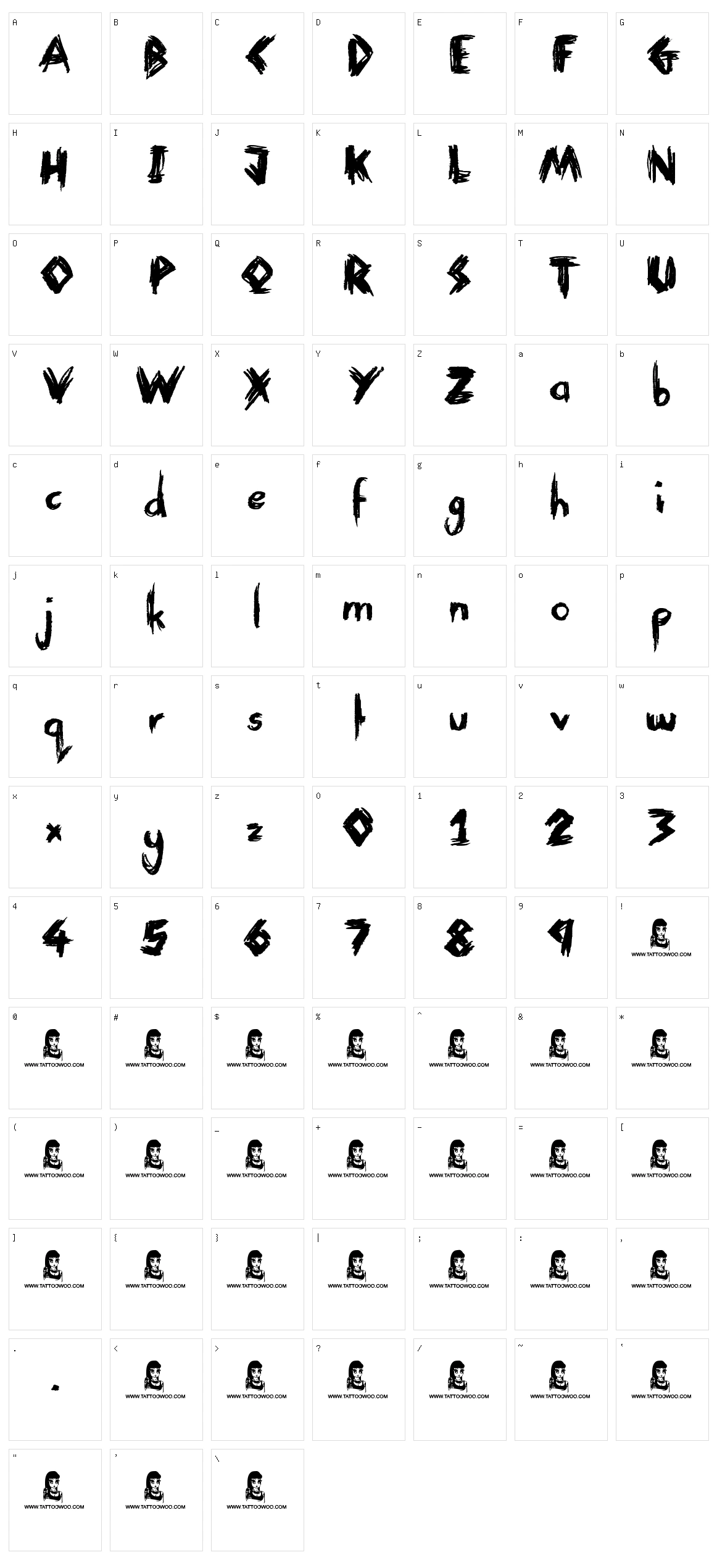
The free font Think Nothing is carefully designed by JSH creates, showcasing a thoughtful balance of creativity and usability and falls under the Horror font style. When you download the ZIP file, it contains only 90.79 KB of font files, making it lightweight and quick to download. Please review the license details below to understand permitted usage and distribution rights. If license information is not available, we recommend using this font for personal projects only or contacting the author directly for commercial usage permissions.